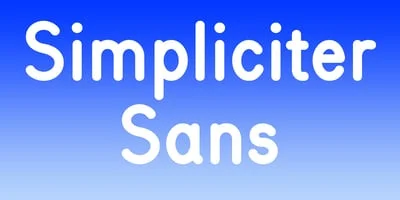
The Simpliciter Sans Font excels in various design applications including minimalist brand identities, clean corporate communications, modern web typography, efficient user interface design, streamlined product packaging, contemporary architectural signage, simplified technical documentation, progressive healthcare branding, clear educational materials, and sophisticated digital platforms that demand absolute clarity and unpretentious elegance.
What makes the Simpliciter Sans Font exciting is its masterful achievement of pure typographic simplicity through letterforms that eliminate every unnecessary element while maintaining exceptional readability and subtle sophistication. This typeface embodies the philosophy that true elegance lies in simplicity through carefully refined characters that communicate with crystal-clear directness and uncompromising functionality. The font's minimalist personality makes it perfect for modern brands and organizations seeking to communicate efficiency, transparency, and intelligent design through typography that proves less is genuinely more when executed with perfect precision.
The Simpliciter Sans Font family typically includes comprehensive weight variations from ultra-light to bold, featuring perfectly balanced proportions and extended character sets optimized for maximum legibility across all platforms. These family options often include condensed variants for space-efficient design, carefully spaced numerals for data clarity, and minimal yet functional symbols that enhance the font's utility for contemporary digital and print applications requiring absolute simplicity.
Design professionals and progressive organizations consistently choose Simpliciter Sans Font for projects requiring typography that communicates modern sophistication and functional excellence. This typeface delivers exceptional performance in user interface design, corporate communications, and contemporary branding where establishing clarity and demonstrating design intelligence is essential for user experience success. The font's simplified character makes it particularly effective for technology and healthcare applications requiring maximum accessibility. Download Simpliciter Sans Font today to access this refined typeface that transforms communications with its pure simplicity and functional sophistication, creating compelling user experiences that demonstrate how intelligent restraint and careful refinement can achieve greater impact than elaborate decoration.